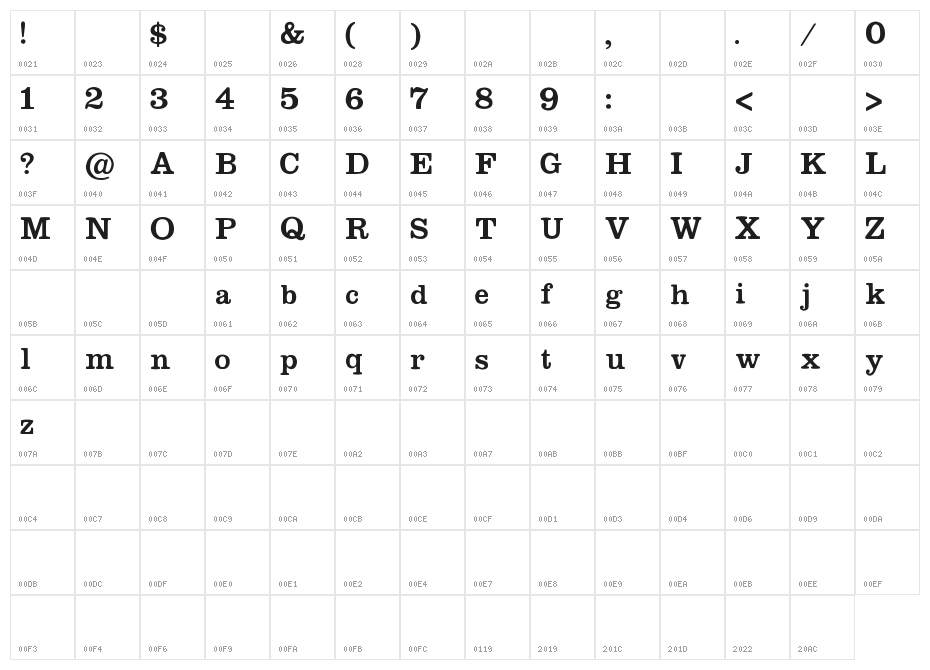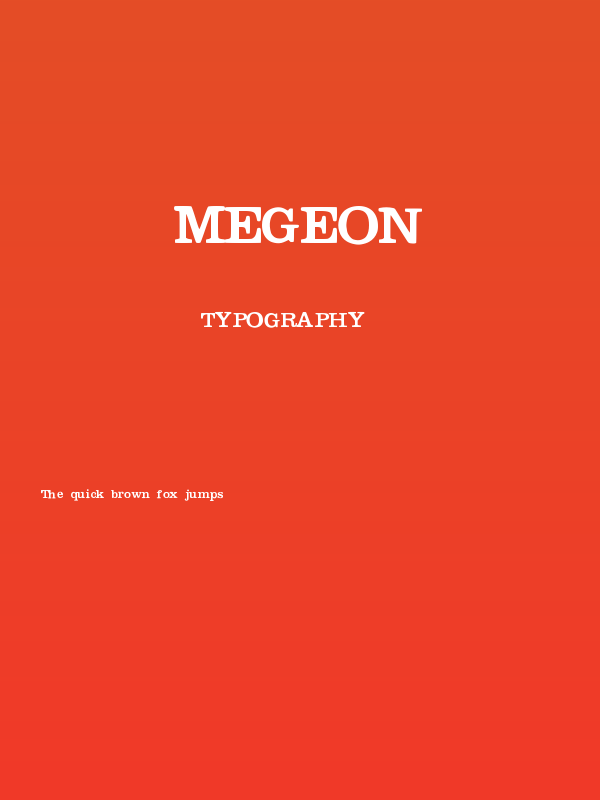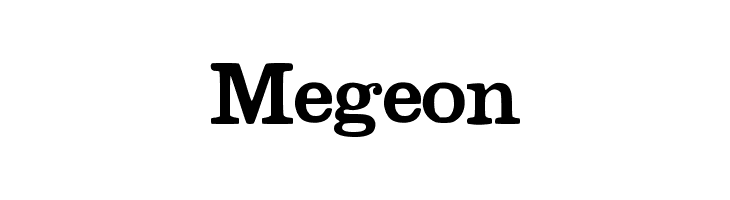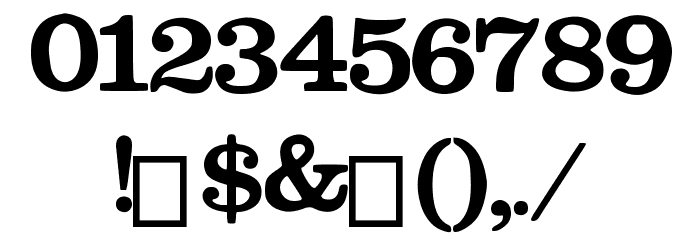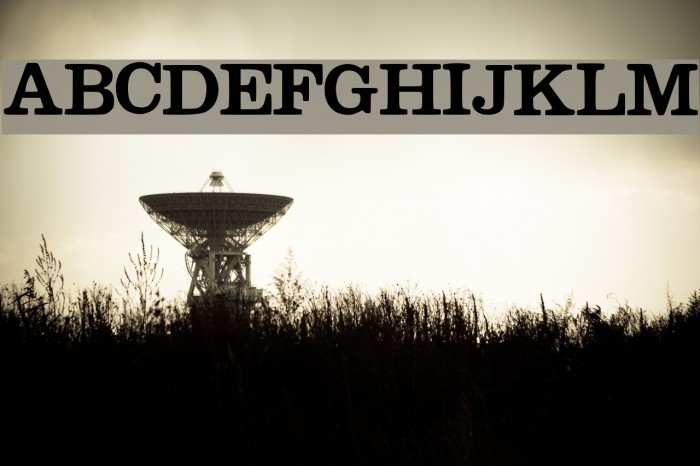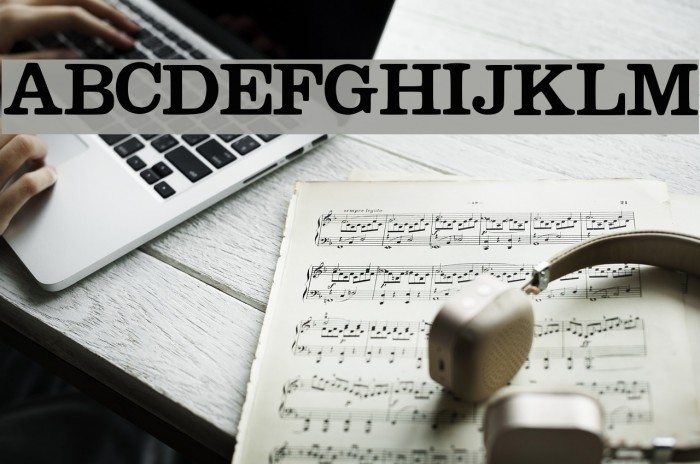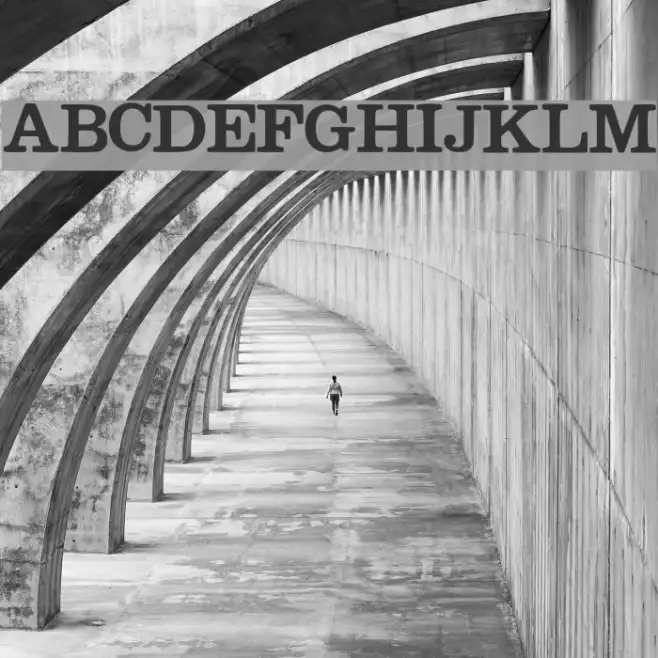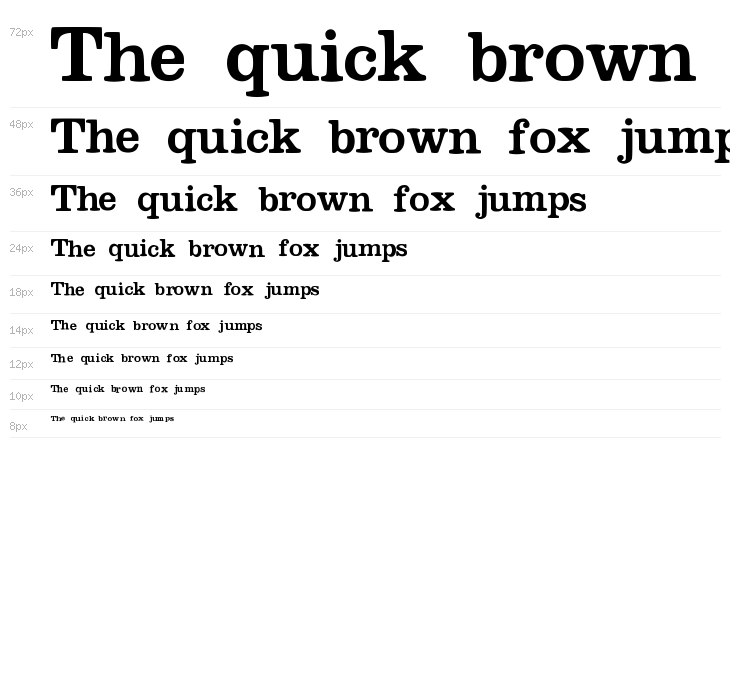
Megeon Font
Megeon Description
This font features a bold and robust design with strong serifs and a classic aesthetic. The uppercase letters are prominent and commanding, while the lowercase letters maintain a consistent and harmonious flow. The numbers are clear and well-defined, making them suitable for various applications. Special characters are designed with the same attention to detail, ensuring they integrate seamlessly with the rest of the typeface. The overall appearance is both traditional and versatile, making it suitable for a wide range of design projects.